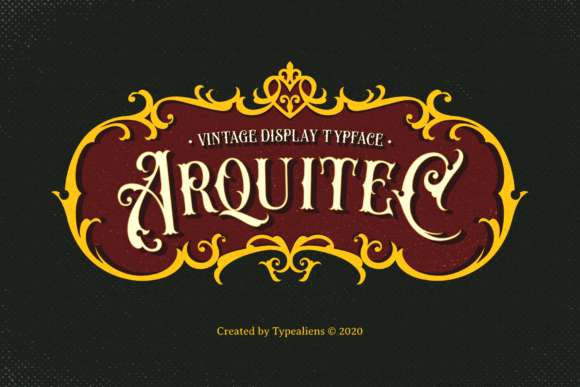
Arquitec Font: A Playful Nose Dive into Vintage Aesthetics
Are you looking to add a touch of nostalgia to your design projects? Do you want to evoke a sense of retro charm that instantly transports your audience back in time? Look no further than the Arquitec Font! This incredible typeface is a masterclass in vintage aesthetics, delivering a playful and nostalgic feel that’s perfect for a wide range of design applications.
The Story Behind Arquitec Font
The Arquitec Font is a carefully crafted typeface that’s designed to evoke the spirit of a bygone era. Its creators drew inspiration from classic retro fonts, infusing Arquitec with a unique blend of playfulness and sophistication. The result is a font that’s both nostalgic and modern, with a distinctive character that’s sure to capture the imagination of designers and audiences alike.
Key Features of Arquitec Font
- Unique Glyphs: Arquitec Font boasts an impressive range of unique glyphs, each one meticulously designed to add a touch of vintage flair to your designs.
- Playful Curves: The font’s playful curves and lines are expertly crafted to create a sense of movement and energy, making it perfect for designs that require a dash of dynamism.
- Retro Aesthetic: Arquitec’s retro aesthetic is unmistakable, with a distinctive look that’s reminiscent of classic design from the 80s and 90s.
- Highly Versatile: Whether you’re working on a branding project, a website, or a print design, Arquitec Font is highly versatile and can be used in a wide range of applications.
Using Arquitec Font in Your Designs
Adding a Retro Touch to Your Designs
So, how can you use Arquitec Font to add a retro touch to your designs? Here are a few ideas to get you started:
- Combine with Bright Colors: Arquitec Font looks amazing when paired with bright, bold colors. Try combining it with a vibrant color scheme to create a design that’s truly eye-catching.
- Use in Headlines: The font’s bold, playful curves make it perfect for use in headlines and titles. Try using Arquitec Font to add a touch of retro flair to your headlines.
- Mix with Modern Elements: Don’t be afraid to mix Arquitec Font with modern design elements to create a unique and interesting contrast.
Design Example: Creating a Retro-Style Poster
In this example, Arquitec Font is used to create a retro-style poster that’s perfect for promoting a vintage-themed event. The font is paired with bright colors and bold graphics to create a design that’s both nostalgic and eye-catching.
Tips for Using Arquitec Font Effectively
Here are a few tips for using Arquitec Font effectively in your designs:
- Keep it Simple: While Arquitec Font is a bold and playful typeface, it’s best to keep your design simple and uncluttered to allow the font to shine.
- Experiment with Colors: Don’t be afraid to experiment with different colors and combinations to find the perfect look for your design.
- Use in Combination with Other Fonts: Arquitec Font can be used in combination with other fonts to create a unique and interesting contrast.
Arquitec Font vs. Other Retro Fonts
In conclusion, Arquitec Font is an incredible typeface that’s perfect for designers looking to add a touch of retro charm to their designs. With its unique glyphs, playful curves, and highly versatile design, Arquitec Font is sure to capture the imagination of designers and audiences alike. So why not give it a try and see how you can use Arquitec Font to add a special retro touch to your next design project?